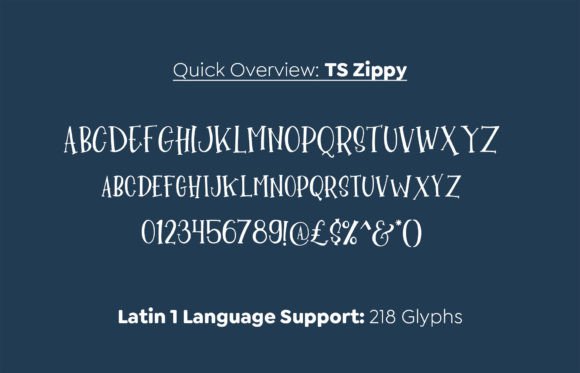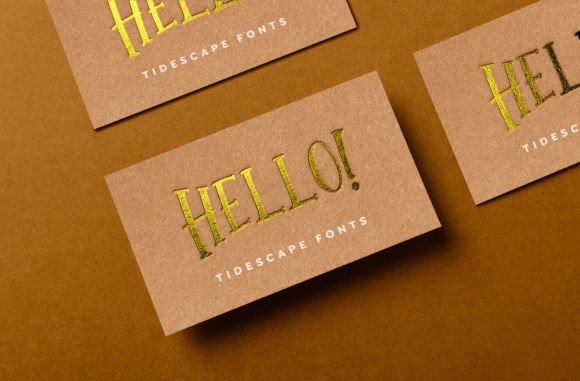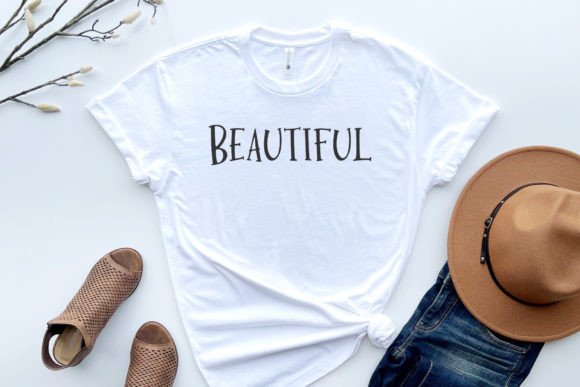
Zippy Font
About Zippy Font
“Zippy” is a playful and kids-inspired handwritten font that exudes personality and charm. This font is perfect for a wide variety of creative design projects, making it a versatile choice for crafts, T-shirts, logos, books, cards, invitations, quotes, and any design centered around children or whimsy.
One of the standout features of “Zippy” is its ability to convey a sense of fun and creativity. The font’s handwritten style adds a personal and authentic feel to your text, making it an ideal choice for projects that aim to create a lighthearted and imaginative atmosphere.
This font’s playful design makes it a fantastic choice for a wide range of design contexts. “Zippy” can be used for children’s books, school projects, crafts, branding for kids’ products, and more, making it a go-to option for any project that requires a touch of whimsy and youthful energy.
Visualize using “Zippy” for a children’s book cover and how it instantly captures the essence of imagination and creativity. Picture incorporating this font into your T-shirt designs, adding a playful and fun element to your merchandise. When you choose “Zippy” for your projects, you’re selecting a font that infuses them with a sense of youthful exuberance and creativity.
In conclusion, “Zippy” is more than just a font; it’s a design asset that brings a sense of playfulness and personality to your creative projects. Its handwritten style and charming design make it an ideal choice for a wide range of applications, particularly those aimed at children or those that want to evoke a sense of whimsy. Embrace “Zippy” as a font that adds a spark of fun and creativity to your work, making it engaging and delightful for all ages.